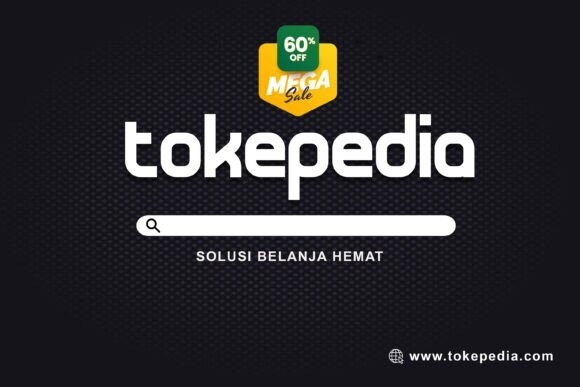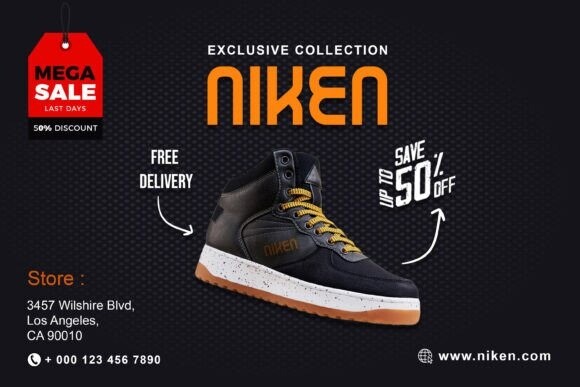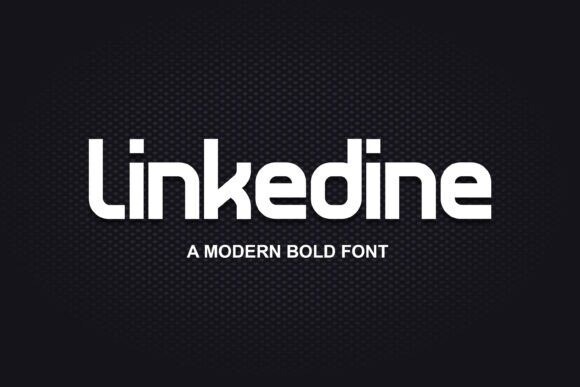
Linkedine Font
Linkedine Font, an exquisitely clean and bold display font, that masterfully combines contemporary aesthetics with a hint of sophistication. It’s known for its solid, definite lines which command attention without compromising on style or authenticity. Linkedine shines in creating a high-impact visual statement, making it an optimal choice for captivating headlines, eye-catching posters, or trendy logos. Guaranteed to provide an air of finesse and distinction to your design work, Linkedine is refreshingly original and elegantly refined.